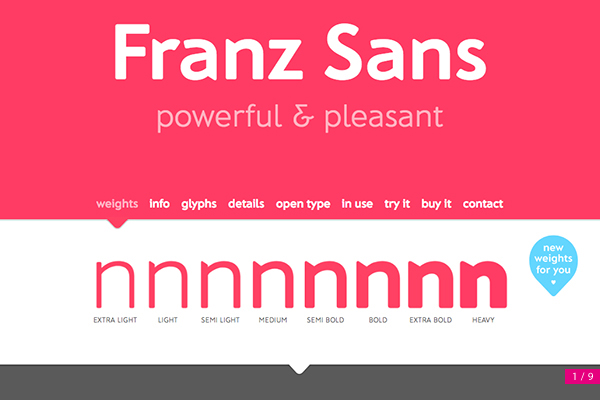
Franz Sans Sharp angles combine with round corners to make Franz Sans appear both powerful and pleasant at the same time. Franz Sans is an optical, mono-linear grotesque. The details work best in display sizes for your web and print projects. designed by Mona Franz www.franzsans.de |